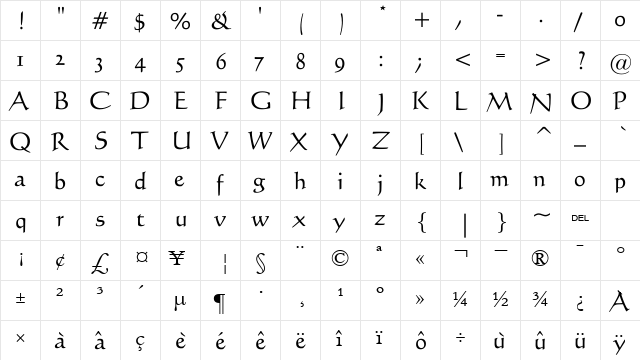
Traditional Arabic Morph Regular
Design Context for Traditional Arabic Morph Typeface
Traditional Arabic Morph takes a measured approach to typography — its balanced proportions and neutral character make it a reliable workhorse for both digital and print work.